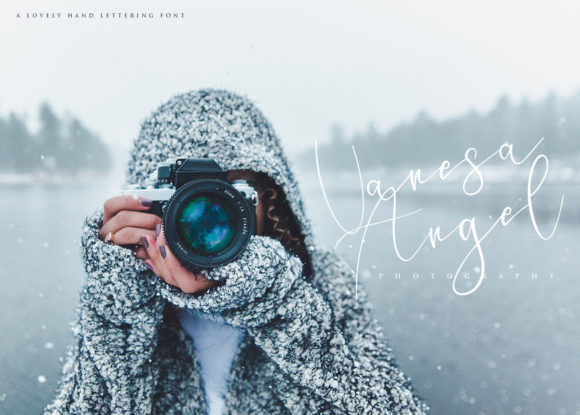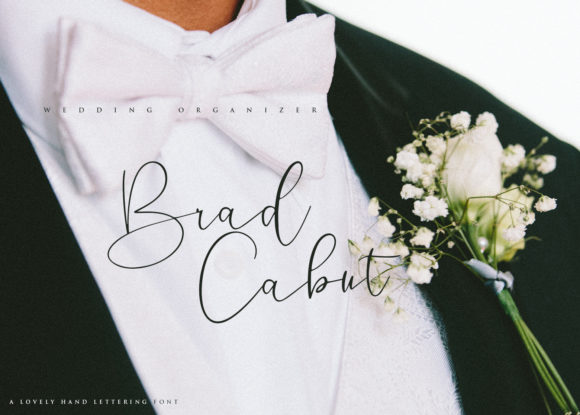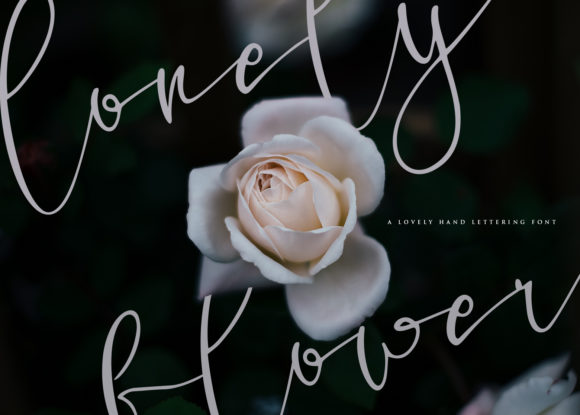
Santoy Font
About Santoy Font
Santoy is an extremely light and stunning handwritten font with a bold feel. Use it to turn any design project into an eye catcher.